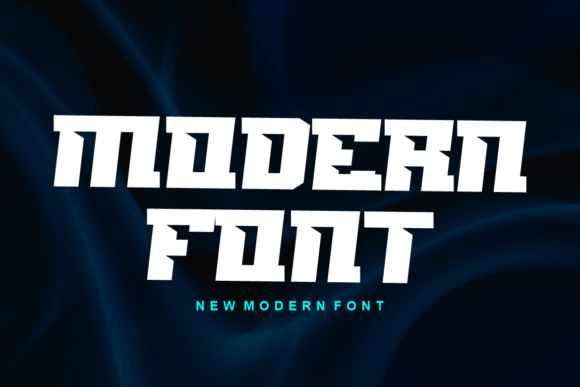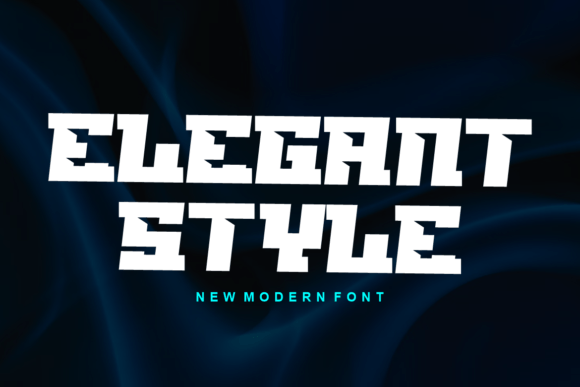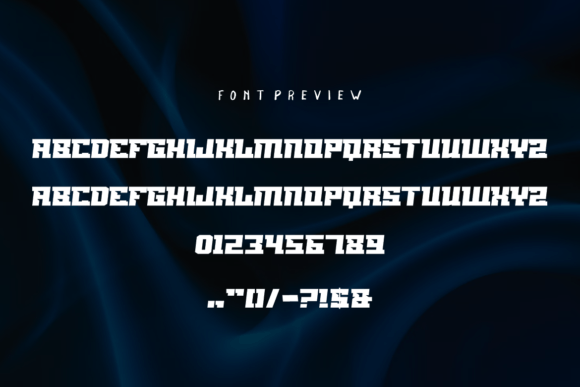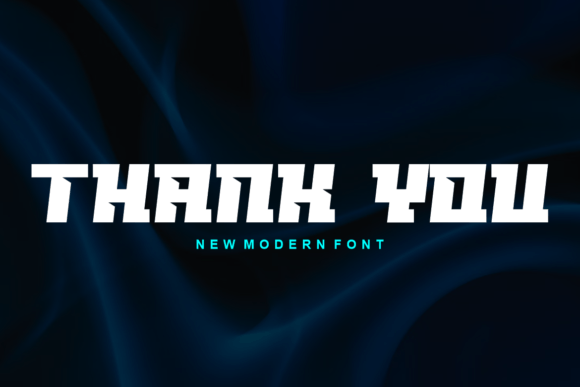
Introducing Guard Samick Font: A Bold and Authentic Display Font
In the world of typography, fonts play a crucial role in conveying the tone and personality of a brand. For designers and crafters, finding the right font can make all the difference in creating a stunning visual identity. If you’re on the hunt for a bold and authentic display font, look no further than Guard Samick Font. In this article, we’ll dive into the features and benefits of this modern font and explore its suitability for various branding projects.
What is Guard Samick Font?
Guard Samick Font is a modern display font designed to make a statement. Its bold and authentic style makes it perfect for creating a strong visual impact. The font is suitable for a wide range of contexts, from logos and esport branding to advertising and marketing materials. With its unique character set, Guard Samick Font is sure to grab attention and leave a lasting impression.
Key Features of Guard Samick Font
- Bold and Authentic Style: Guard Samick Font boasts a bold and authentic style that’s perfect for creating a strong visual identity.
- Modern Design: The font features a modern design that’s perfect for contemporary branding projects.
- Wide Range of Contexts: Guard Samick Font is suitable for a wide range of contexts, from logos and esport branding to advertising and marketing materials.
Benefits of Using Guard Samick Font
So, why should you choose Guard Samick Font for your branding project? Here are just a few benefits of using this amazing font:
- Stand Out from the Crowd: With its bold and authentic style, Guard Samick Font is sure to make your brand stand out from the crowd.
- Versatility: The font is suitable for a wide range of contexts, making it a versatile addition to your font library.
- High-Quality Design: The font features a high-quality design that’s perfect for creating professional-looking branding materials.
Use Cases for Guard Samick Font
So, what can you use Guard Samick Font for? Here are just a few ideas to get you started:
- Logo Design: Use Guard Samick Font to create a bold and authentic logo that makes a statement.
- Esport Branding: The font is perfect for esport branding, adding a modern and edgy touch to your team’s visual identity.
- Advertising and Marketing: Use Guard Samick Font to create eye-catching advertising and marketing materials that grab attention.
- Social Media Graphics: The font is also suitable for social media graphics, adding a bold and authentic touch to your online presence.